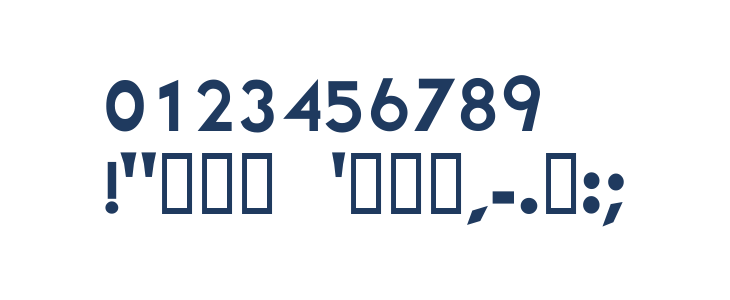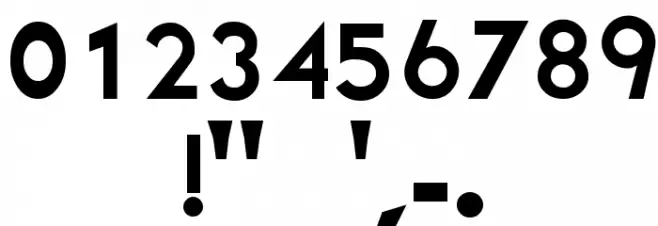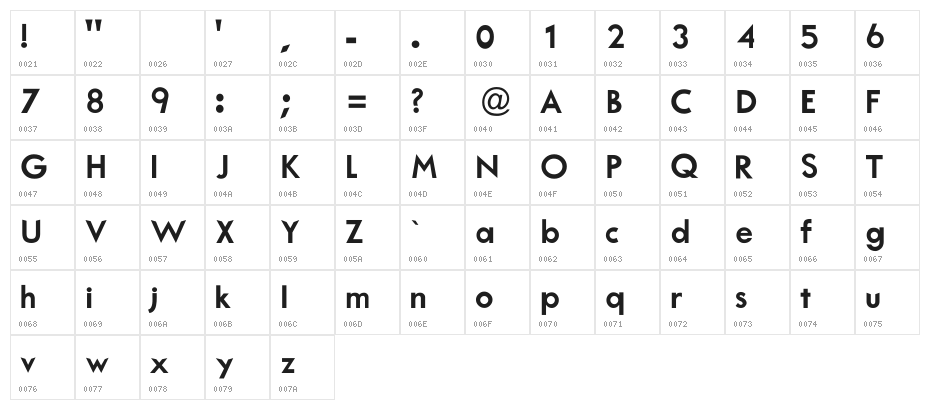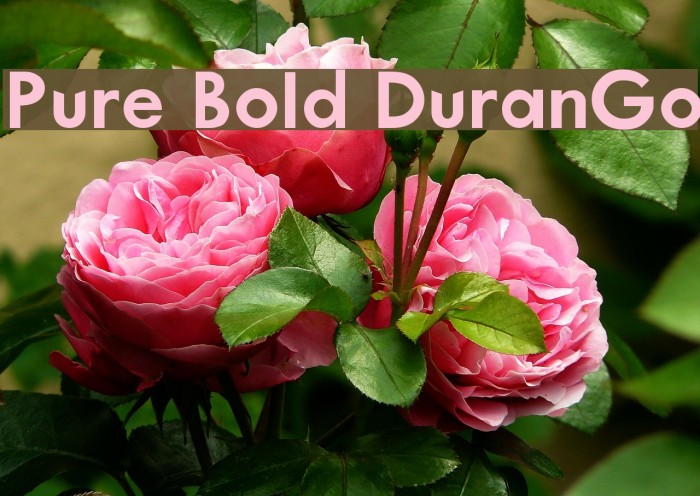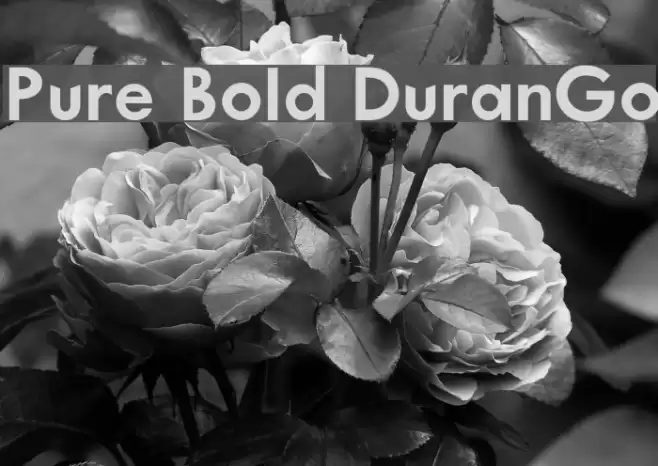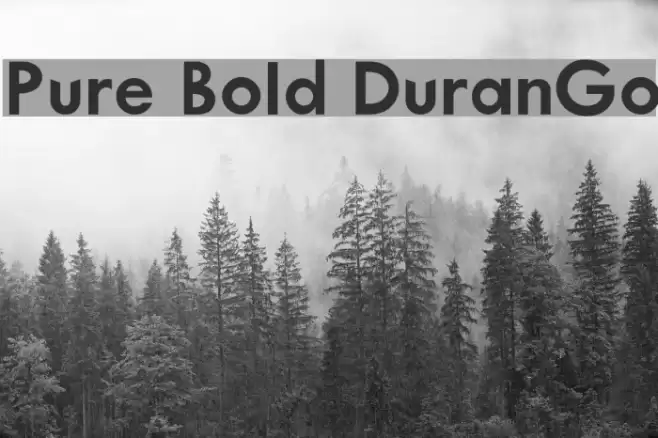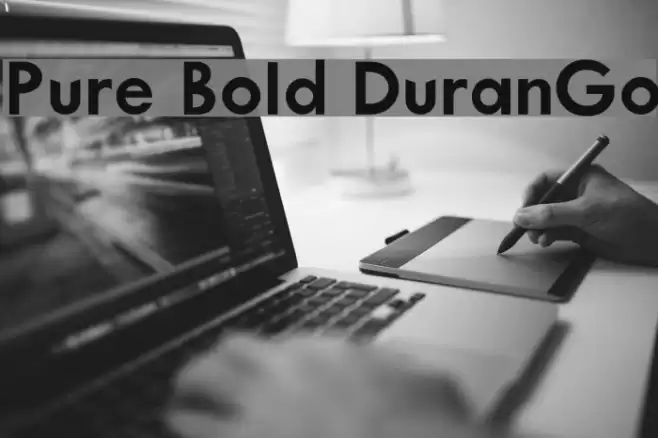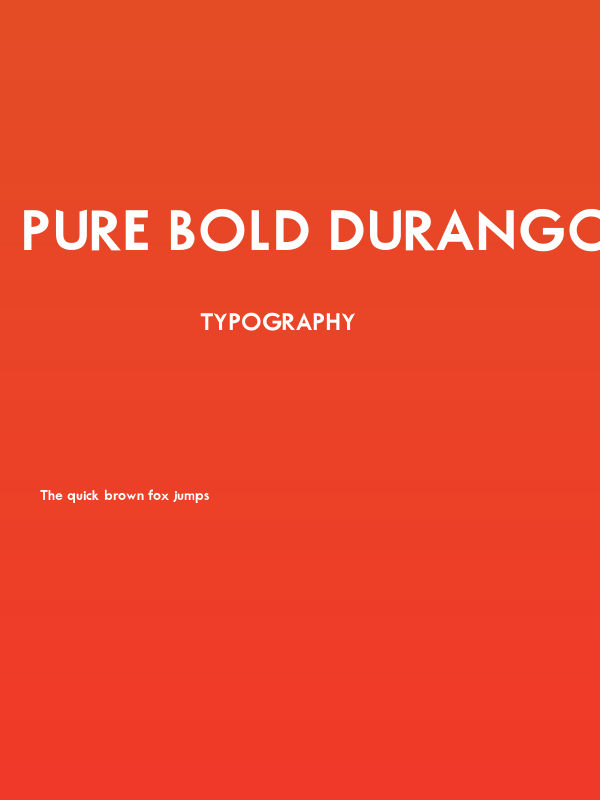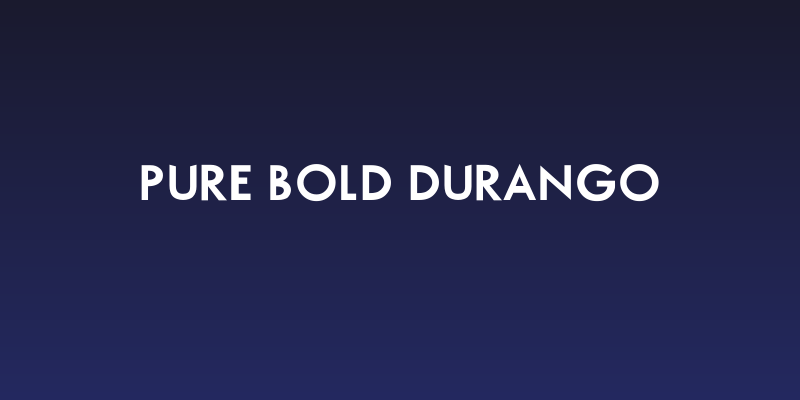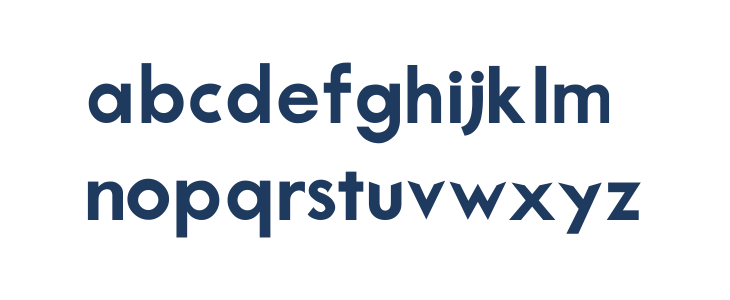
Pure Bold DuranGo Font
Pure Bold DuranGo Description
This font features a bold and modern sans-serif style with clean lines and a strong presence. The uppercase letters are uniform in height, providing a balanced and structured appearance. The lowercase letters maintain a consistent weight, contributing to the overall boldness of the typeface. The numerals are clear and easily distinguishable, making them suitable for a variety of applications. The special characters are designed to complement the alphabet, ensuring a cohesive look across all text elements. The font's simplicity and clarity make it versatile for both digital and print media.
| Proposed Projects | Ideal for branding, headlines, posters, and digital media where a bold statement is needed. |